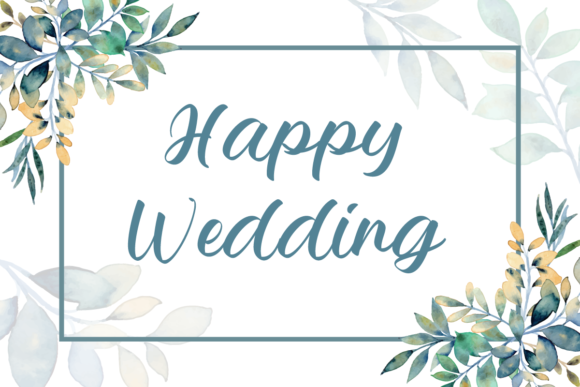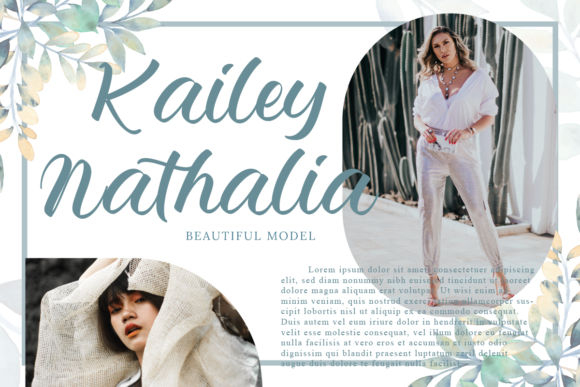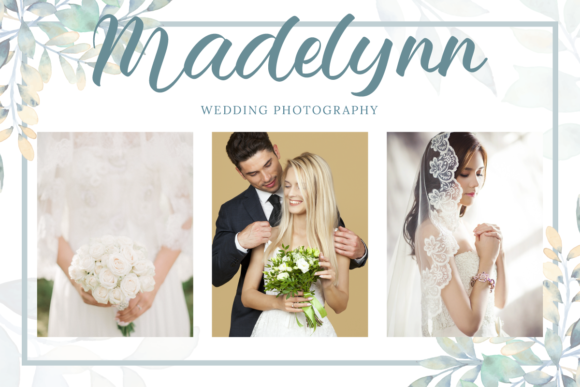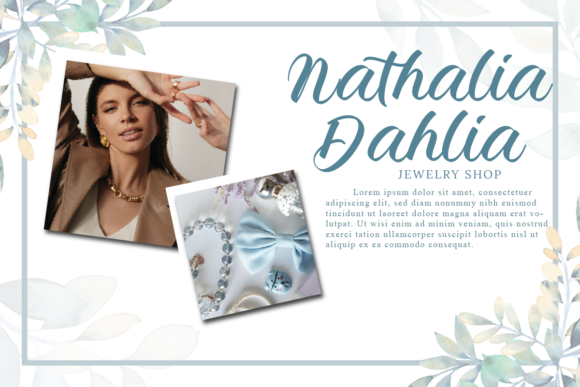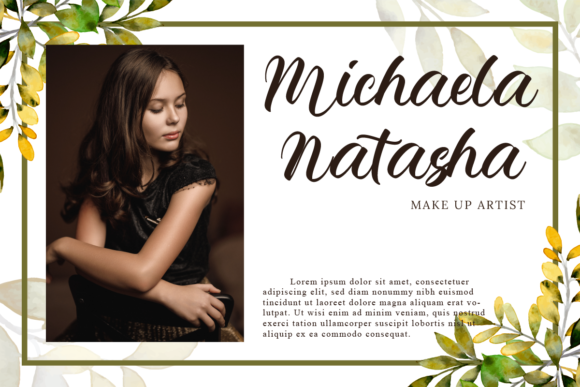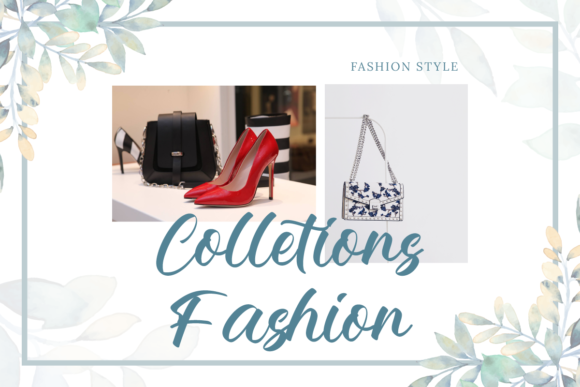
The Quest for the Perfect Font: Discovering Anabelle Fernanda
I’ll never forget the time I was working on a wedding invitation project, and my client asked for a font that was “lovely, romantic, and elegant.” I scoured the internet, tried countless fonts, but nothing seemed quite right. That was until I stumbled upon Anabelle Fernanda Font. ✨
This beautiful, handwritten font has been a game-changer for my design projects, and I’m excited to share it with you. In this article, we’ll explore the charm of Anabelle Fernanda, its features, and how to make the most of it in your designs.
An Honest Review of Anabelle Fernanda Font
• ✨ Delicate and flowing script: Anabelle Fernanda’s handwritten style is perfect for projects that need a touch of elegance and romance.
• ✅ Easy to read: Despite its ornate feel, this font is surprisingly legible, making it suitable for body text and headings.
• 💕 Versatile: Anabelle Fernanda can be used for a wide range of projects, from wedding invitations to branding, packaging, and more.
While Anabelle Fernanda is an excellent font, it’s not without its quirks. ⚠️
• 🤔 Limited use in very small sizes: Due to its intricate design, Anabelle Fernanda may not be the best choice for very small font sizes (below 10-12 points).
• ⚠️ No built-in bold weight: If you need a bold version of the font, you may need to rely on synthetic bolding or use a different font altogether.
The Story Behind Anabelle Fernanda
Anabelle Fernanda Font was designed with love and care by a talented type designer. The story goes that the designer was inspired by traditional calligraphy and hand-lettering techniques, aiming to create a font that would evoke emotions and add a touch of elegance to any design project.
Q: What type of projects is Anabelle Fernanda best suited for?
A: Anabelle Fernanda is perfect for projects that need a touch of elegance and romance, such as wedding invitations, love letters, and luxury branding.
Q: Is Anabelle Fernanda a difficult font to read?
A: Despite its ornate feel, Anabelle Fernanda is surprisingly legible and can be used for body text and headings.